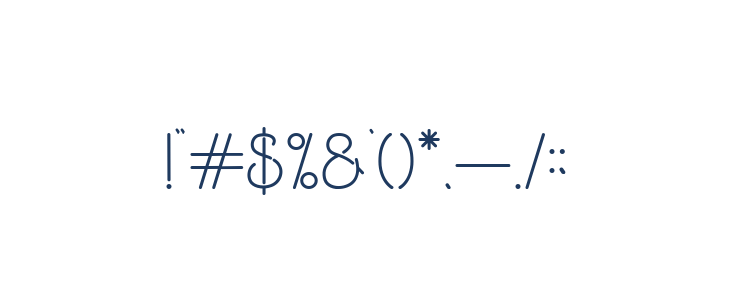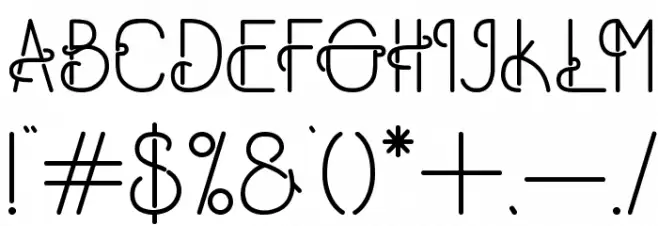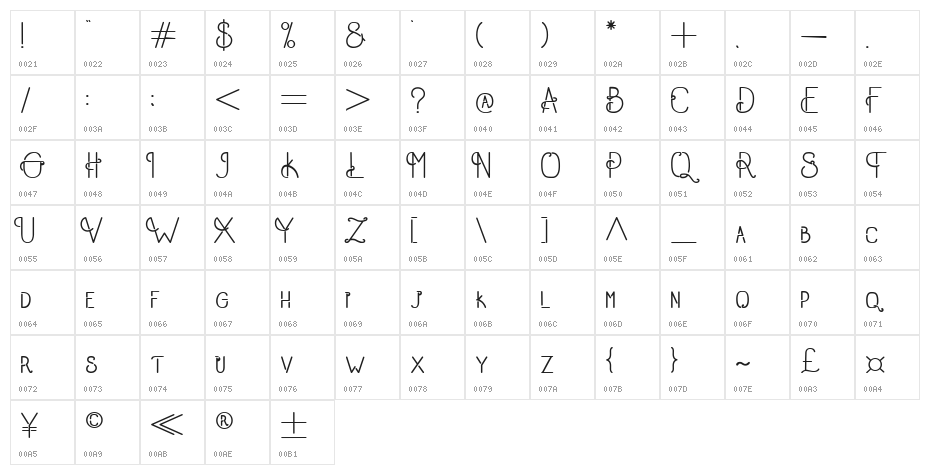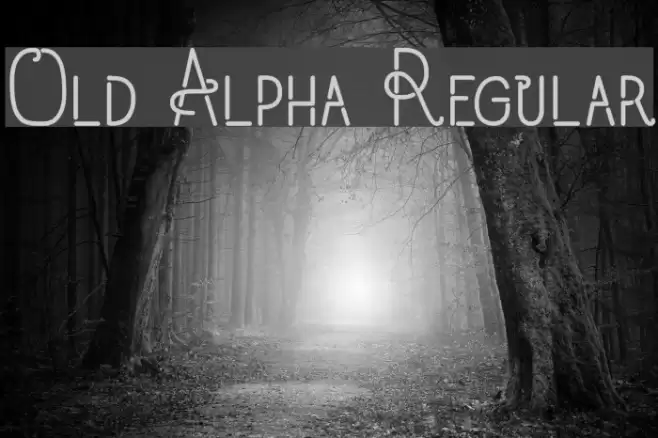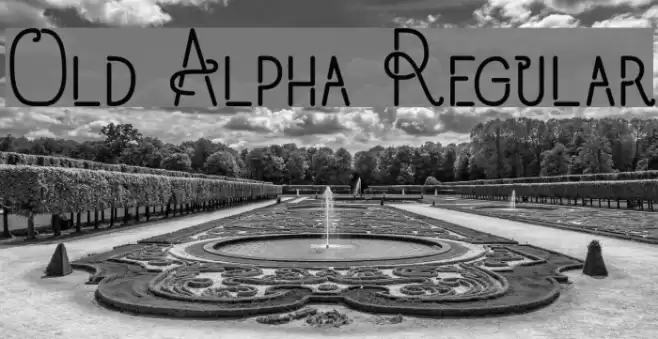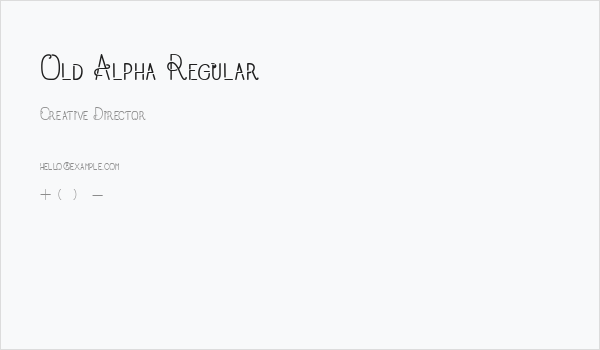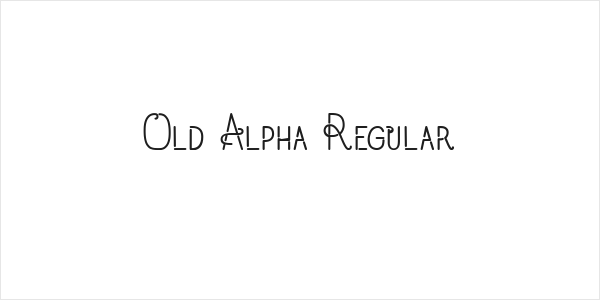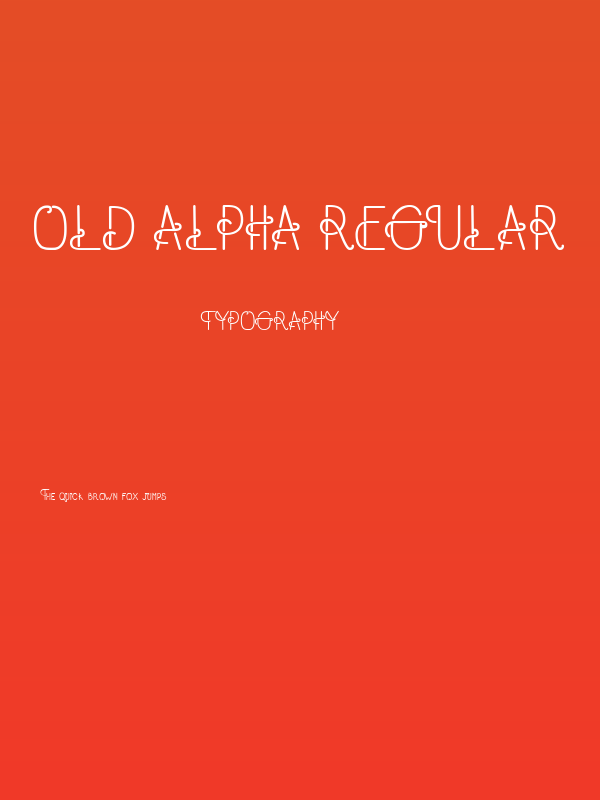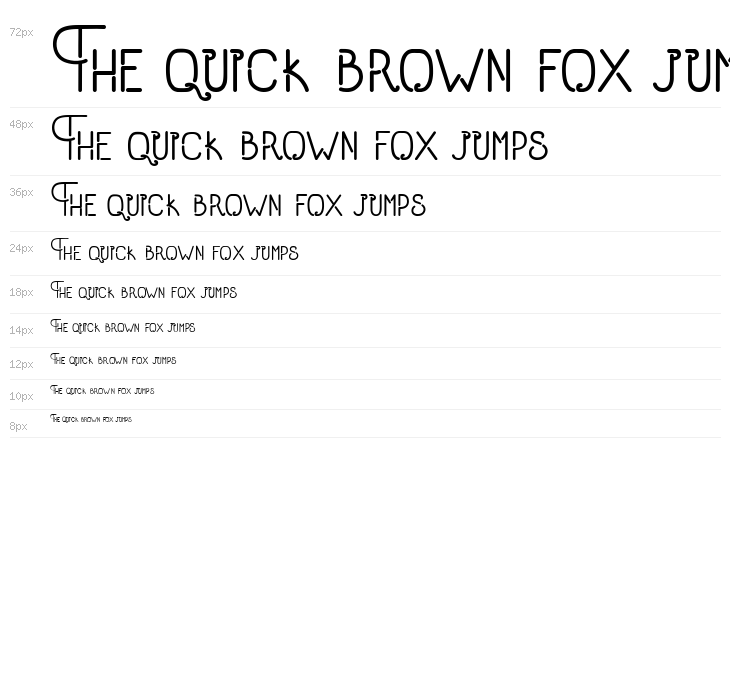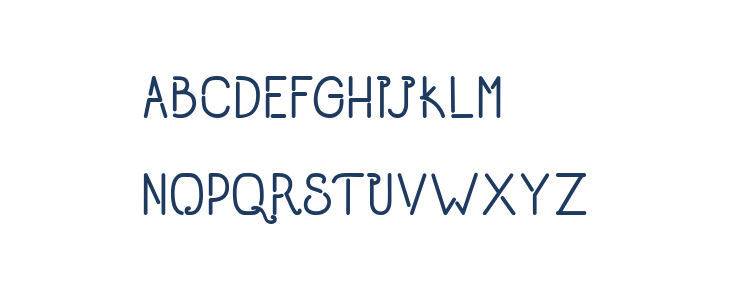
Old Alpha Regular Font
Old Alpha Regular Description
This font features a unique and creative design with a blend of geometric and decorative elements. The characters are composed of thin, consistent strokes that form a continuous line, creating a sense of fluidity and movement. The uppercase letters are particularly distinctive, with some incorporating loops and curves that add an artistic flair. The lowercase letters maintain a similar style, ensuring cohesion across the typeface. The numbers and special characters are designed to match the overall aesthetic, making this font versatile for various applications. Its modern and artistic appearance makes it suitable for creative projects that require a touch of elegance and originality.
| Use Case | Logos, Posters, Creative projects |
| Proposed Projects | Ideal for branding, logos, posters, and artistic projects that require a unique and modern touch. |